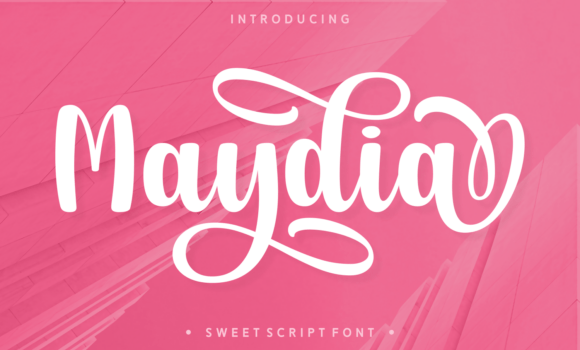
Maydia Font – Free Download Introduction to Maydia Font Maydia is a bold script font with a smooth, hand-drawn feel. 📸 Preview Gallery 5 images 📌 Product Name Maydia Font 👤 Author Creative Fabrica Fonts 📂 Category Explore ⬇️ Download